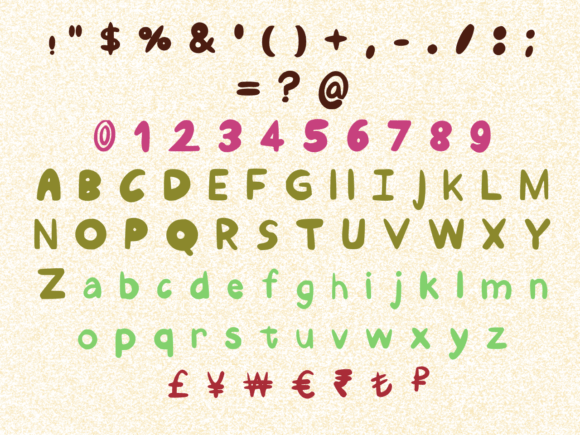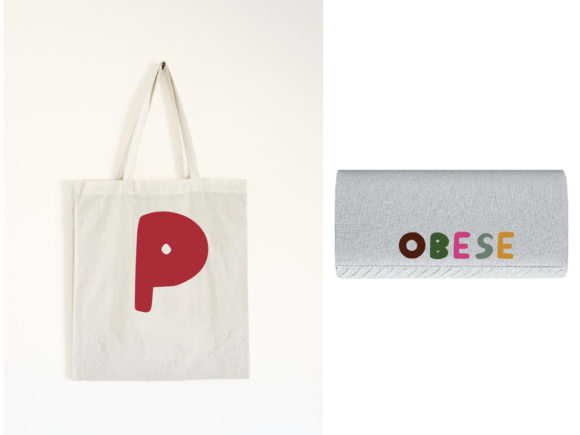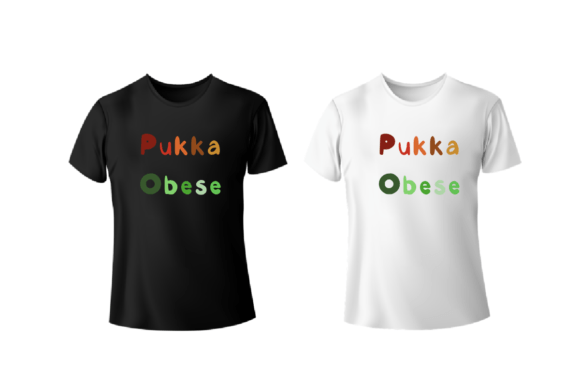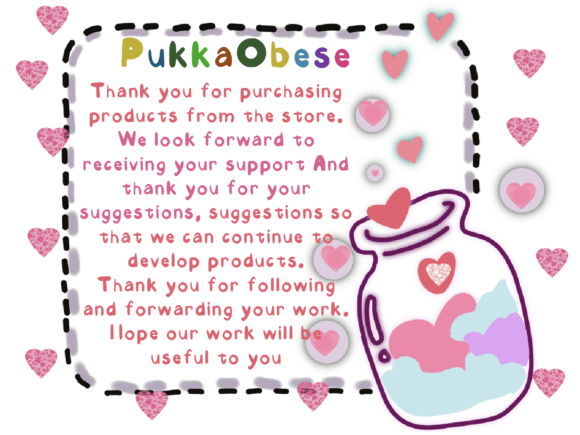
About Pukka Obese Font
Introducing Pukka Obese, a childish and easy-to-read handwritten font designed to convey impeccable friendliness. This font is crafted to be versatile and suitable for a wide range of applications, making it a delightful and friendly choice for various creative projects.
The unique charm of Pukka Obese lies in its playful and approachable design. It is tailored to be easily readable, making it an ideal option for crafts, digital design, presentations, and even greeting cards. Whether you’re working on a project for children or simply aiming to infuse a lighthearted and friendly atmosphere, Pukka Obese is your go-to font.
Imagine using Pukka Obese for digital designs, where its friendly and childish appeal adds a touch of whimsy to your creations. Picture it on greeting cards, where it communicates a sense of joy and approachability. The versatility of Pukka Obese makes it an excellent choice for any occasion that calls for a playful and easy-to-read font.